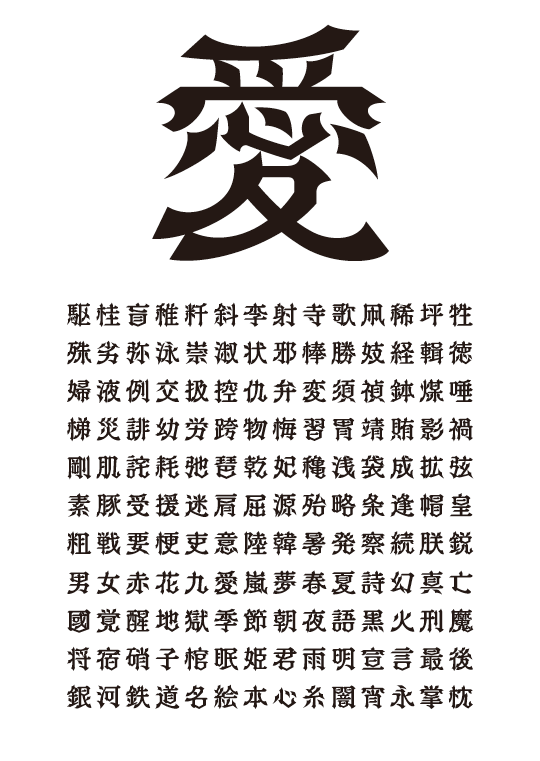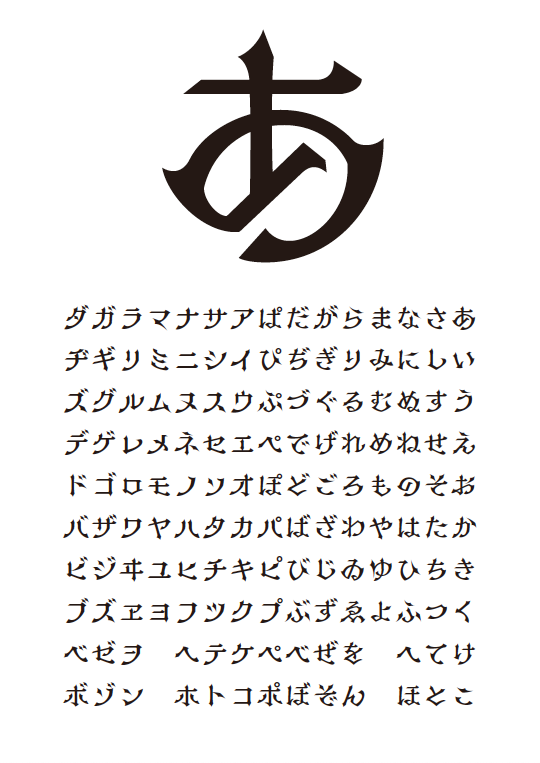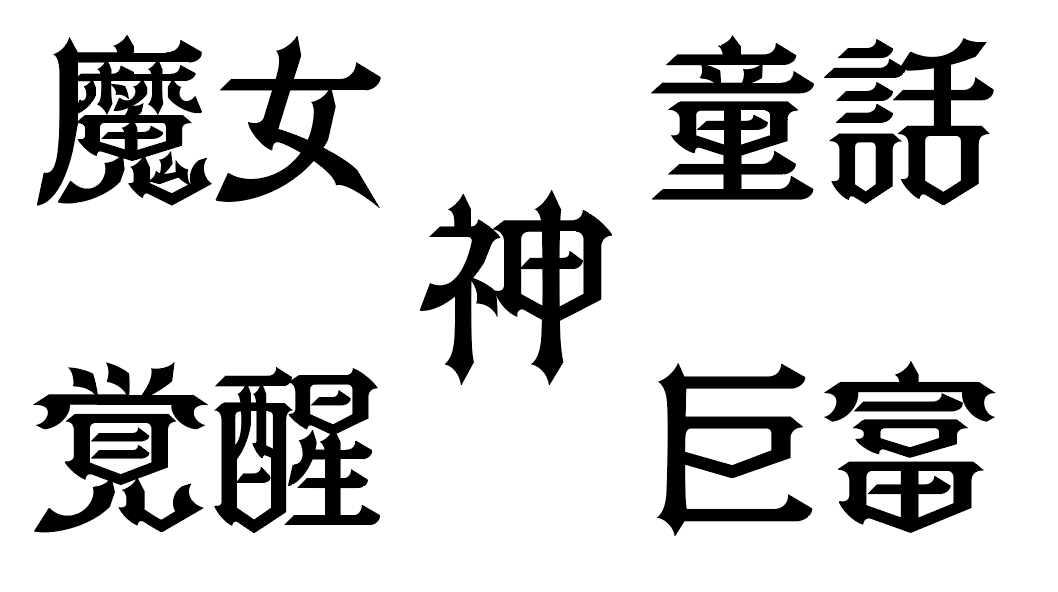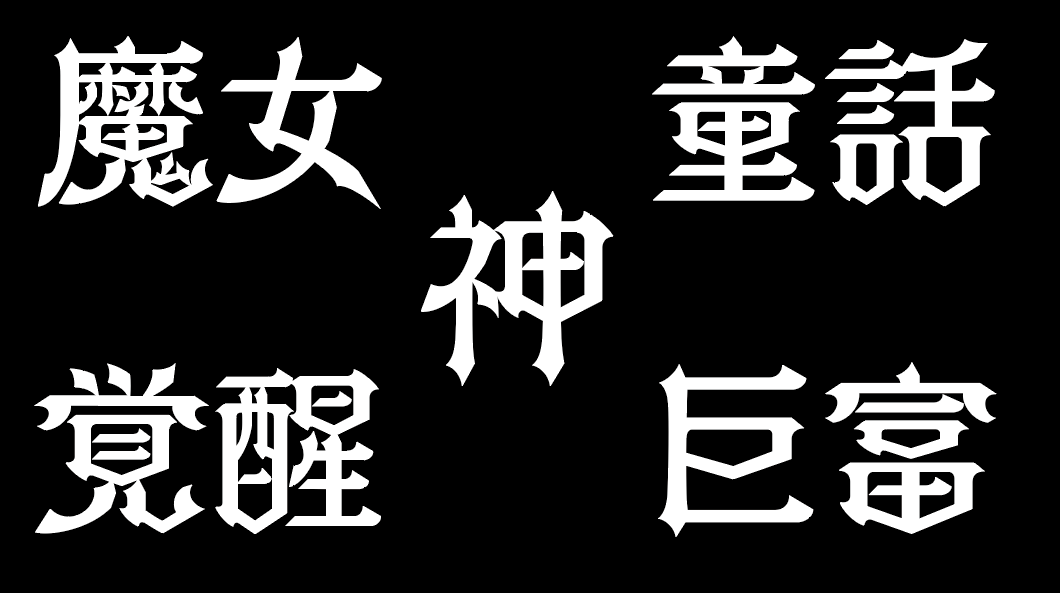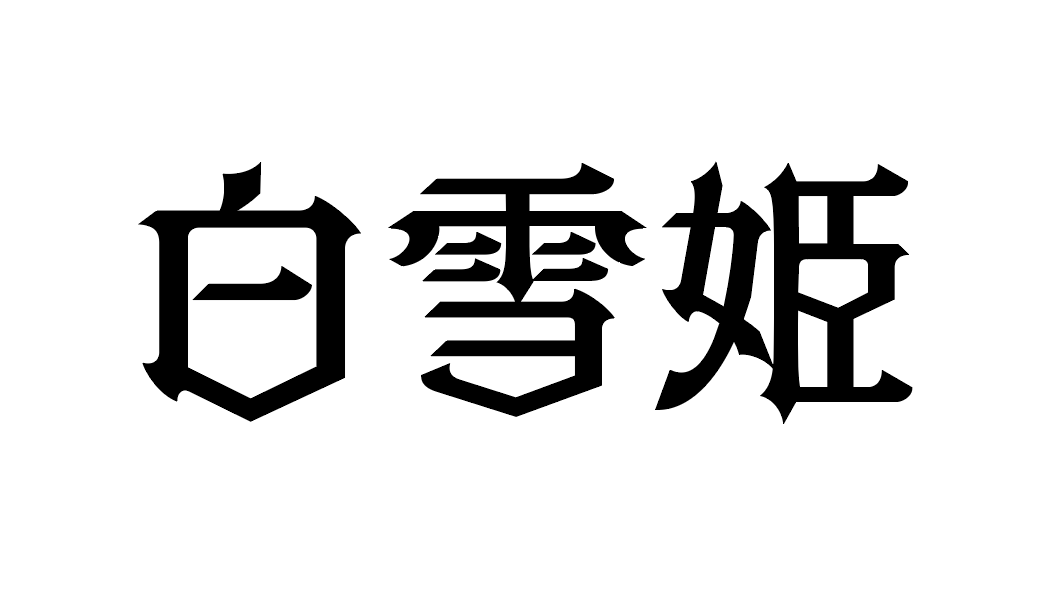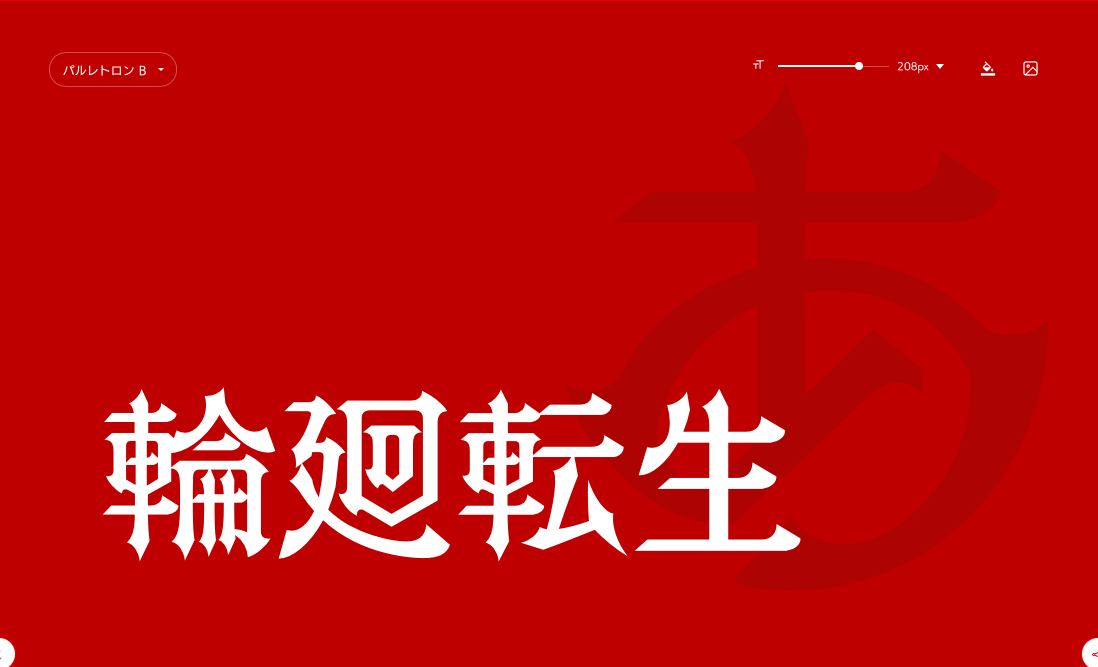
Blog usually introduces new typefaces, but for Font Story we will be focusing on typefaces that have already been released and introducing them on an irregular basis.
The first one is "PalRetron," which has been a hot topic since its release in July of last year (2019) and is also being used in anime this season.
"PalRetron," which was introduced in this article, has been widely used for books, posters, and more since its release.
PalRetron 's theme is Western retro and Gothic Lolita, and its unique vertical and horizontal strokes give it a romantic impression, while its design is decorative and gorgeous, and also has shadows.
It would look amazing if used in light novel titles, catchphrases, etc.!
Recently found Usage
We spoke to Wataru Saito (chipcodesign), who designed the cover of "The Queen of Ideal Lily ~The Artificial Maiden Wants to Breed~", about how he came to use PalRetron and how he processed the font!
How did you use PalRetron?
I've always liked PalRamune, and when PalRetron was released, I definitely wanted to use it! However, because the font is so distinctive, it was difficult to find one that suited the work. When I tried PalRetron for "Queen of Ideal Lily," which is a Mystery work with a dark atmosphere, I found that it matched the atmosphere of the illustration perfectly, so I decided to use it.
I often use TsukuAntique L Gothic B for author names and subtitles because it creates a nice atmosphere.
About typeface processing
Since the artist's paintings are delicate, I make them thinner overall.
In addition, the "queen" is decorated to give it a dignified queen-like appearance, giving it a sense of logo.
A typeface that feels the charm of devilishness
Looking at Palre Roton, I feel the urge to try various characters. I even feel that the characters have magical charm.
"PalRetron" Type Designers
Type Designers Ochi.
Fontworks will release "PalRetron" in July.
The design is inspired by Western retro and Gothic Lolita.